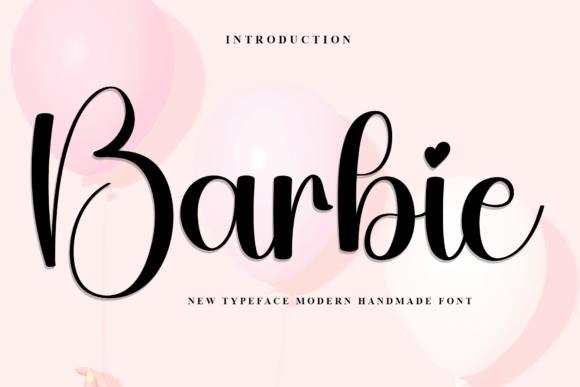
Introducing Barbie Font: The Ultimate Holiday Typeface
The holiday season is upon us, and what better way to get into the spirit than with a festive and merry typeface? Look no further than Barbie Font, a decorative font that captures the essence of the holiday season with its whimsical flair and enchanting charm. In this article, we’ll dive into the world of Barbie Font, exploring its features, uses, and benefits for designers and crafters alike.
Barbie Font is a beautifully crafted typeface that embodies the magic of the holiday season. Its decorative elements and whimsical design make it perfect for adding a touch of enchantment to your designs. Whether you’re creating greeting cards, gift tags, or holiday-themed projects, this font is sure to bring a cheerful and nostalgic ambiance to your words.
Barbie Font is specifically designed with the holiday season in mind. Its festive and merry design makes it ideal for a wide range of projects, including:
- Greeting cards: Create beautiful and unique holiday cards with Barbie Font’s decorative and whimsical design.
- Gift tags: Add a personal touch to your gifts with custom gift tags featuring Barbie Font.
- Holiday-themed projects: From party invitations to festive banners, Barbie Font is the perfect choice for any holiday project.
Barbie Font offers a range of benefits for designers and crafters, including:
- Unique and eye-catching designs: With its decorative and whimsical design, Barbie Font is sure to make your projects stand out.
- Versatility: Barbie Font can be used for a wide range of projects, from digital designs to print materials.
Barbie Font is a festive and merry typeface that’s perfect for adding a touch of enchantment to your holiday designs. With its decorative elements, whimsical flair, and PUA encoding, this font is sure to bring a cheerful and nostalgic ambiance to your words. Whether you’re a designer or crafter, Barbie Font is a must-have for any holiday project. So why wait? Get creative with Barbie Font today and make your holiday designs shine!